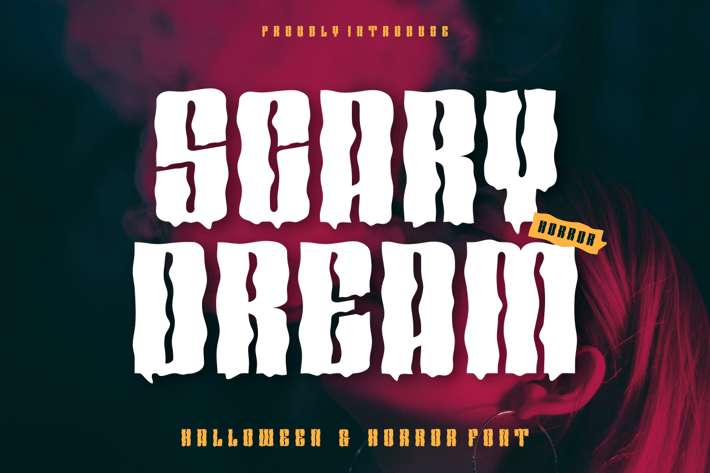
Scary Dream - Halloween & Horror Font
Presenting Scary Dream - Font is suitable for badge, labels, logo, branding, magazine, poster and etc. Our fonts have Uppercase & Lowercase, Numeral & Punctuation, Multilingual support and Opentype Features. For Amazing designs you can mix with other fonts as a complement.